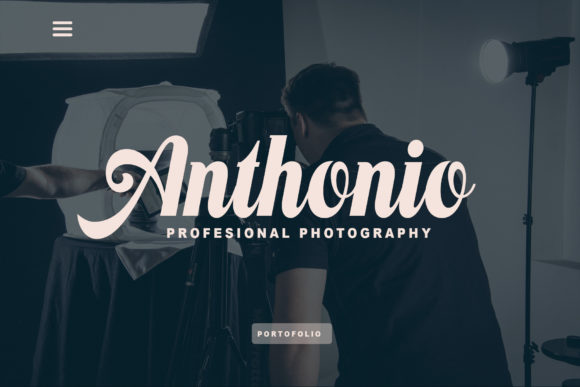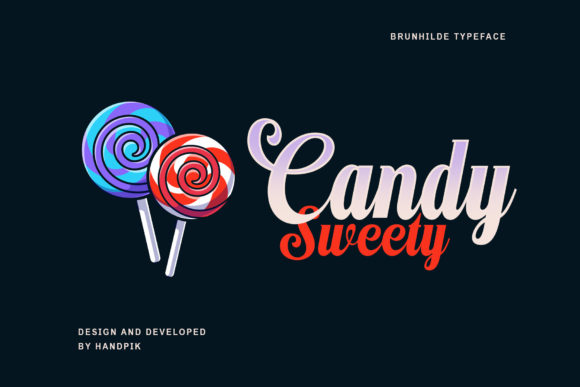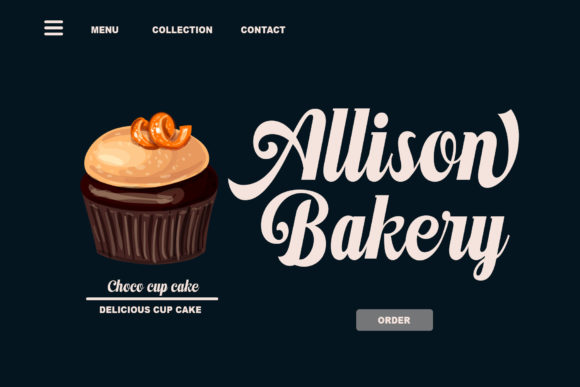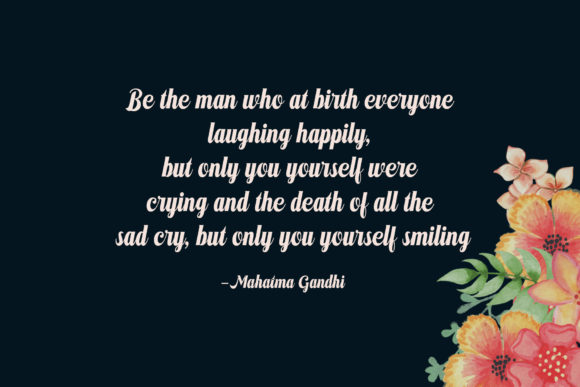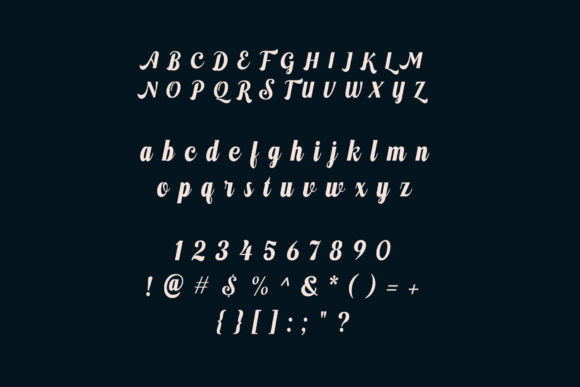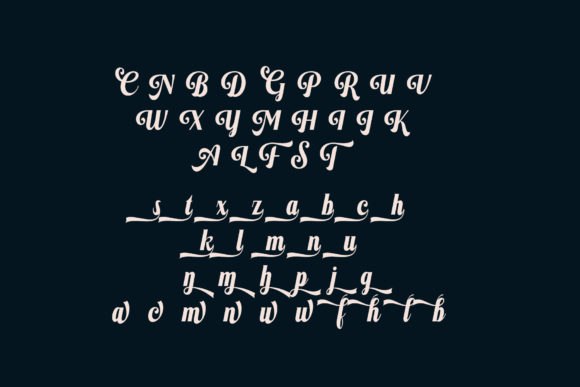
Brunhilde Font: Elevate Your Designs with Elegance and Sophistication
In the world of typography, few fonts manage to capture the essence of elegance and sophistication as beautifully as Brunhilde. This exquisite handwritten font is a masterpiece of modern calligraphy, blending traditional influences with a contemporary twist. Brunhilde is not just a font; it’s an experience that can elevate your designs to new heights of creativity and professionalism.
The Essence of Brunhilde
Brunhilde is a testament to the art of handwriting, meticulously crafted to bring a touch of class and refinement to any project. Its calligraphic roots are evident in the fluidity of its strokes and the elegance of its letterforms. However, what sets Brunhilde apart is its ability to feel both timeless and modern. This font doesn’t just convey a message; it tells a story of sophistication, creativity, and attention to detail.
Design Features of Brunhilde Font
Brunhilde boasts a range of design features that make it incredibly versatile and user-friendly. Some of its key characteristics include:
- Handwritten Elegance: Brunhilde’s handwritten nature gives it a personal and intimate feel, perfect for projects that require a touch of warmth and authenticity.
- Calligraphic Influences: The font’s calligraphic influences are evident in its fluid strokes and elegant letterforms, adding a level of sophistication to any text.
- Contemporary Twist: Despite its classic roots, Brunhilde feels refreshingly modern, making it suitable for a wide range of design applications, from branding and advertising to packaging and editorial design.
- Versatility: Brunhilde is incredibly versatile, capable of adapting to various design contexts and styles. Whether you’re working on a luxury brand identity or a creative personal project, Brunhilde can help you achieve your vision.
Applications of Brunhilde Font
Brunhilde’s versatility makes it an excellent choice for a multitude of design projects. Here are some of the areas where Brunhilde truly shines:
- Branding and Logo Design: Brunhilde can add a touch of elegance and sophistication to your brand identity, helping you stand out in a crowded market.
- Stationery and Packaging: Elevate your stationery, packaging, and product design with Brunhilde’s classy and contemporary aesthetic.
- Editorial Design: Brunhilde is perfect for editorial projects such as magazines, blogs, and books, where its elegant and readable design can enhance the reader’s experience.
- Digital Media: Brunhilde’s modern feel makes it suitable for digital media, including website headers, social media graphics, and online advertising.
Why Choose Brunhilde Font?
Choosing Brunhilde for your design projects comes with numerous benefits. Here are a few reasons why Brunhilde stands out:
- Unique and Memorable: Brunhilde’s distinctive style ensures that your designs will be memorable and stand out from the competition.
- Easy to Read: Despite its elegant and handwritten nature, Brunhilde is remarkably legible, making it suitable for both headings and body text.
- Highly Customizable: Brunhilde offers a range of customization options, allowing you to tailor the font to your specific design needs.
Brunhilde is more than just a font; it’s a design statement. Its exquisite handwritten style, combined with its classy calligraphic influences and modern freshness, makes it an invaluable asset for designers and crafters. Whether you’re looking to add a touch of elegance to your branding, create stunning editorial designs, or simply elevate your digital media, Brunhilde is the perfect choice. With Brunhilde, you can bring your projects to the highest levels of creativity and professionalism, making it an essential tool in your design arsenal.